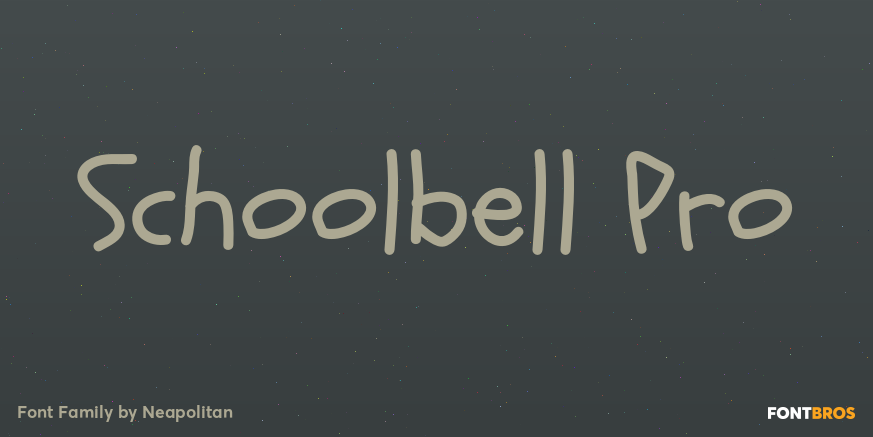
About Schoolbell Pro
Do you hear it? It\’s the sweet sound that let\’s you know when it\’s time to eat lunch in the cafeteria, head out to recess, or hop on the bus to head home! It\’s Schoolbell, the delightfully playful handwriting font from the finest lettering artist in the…